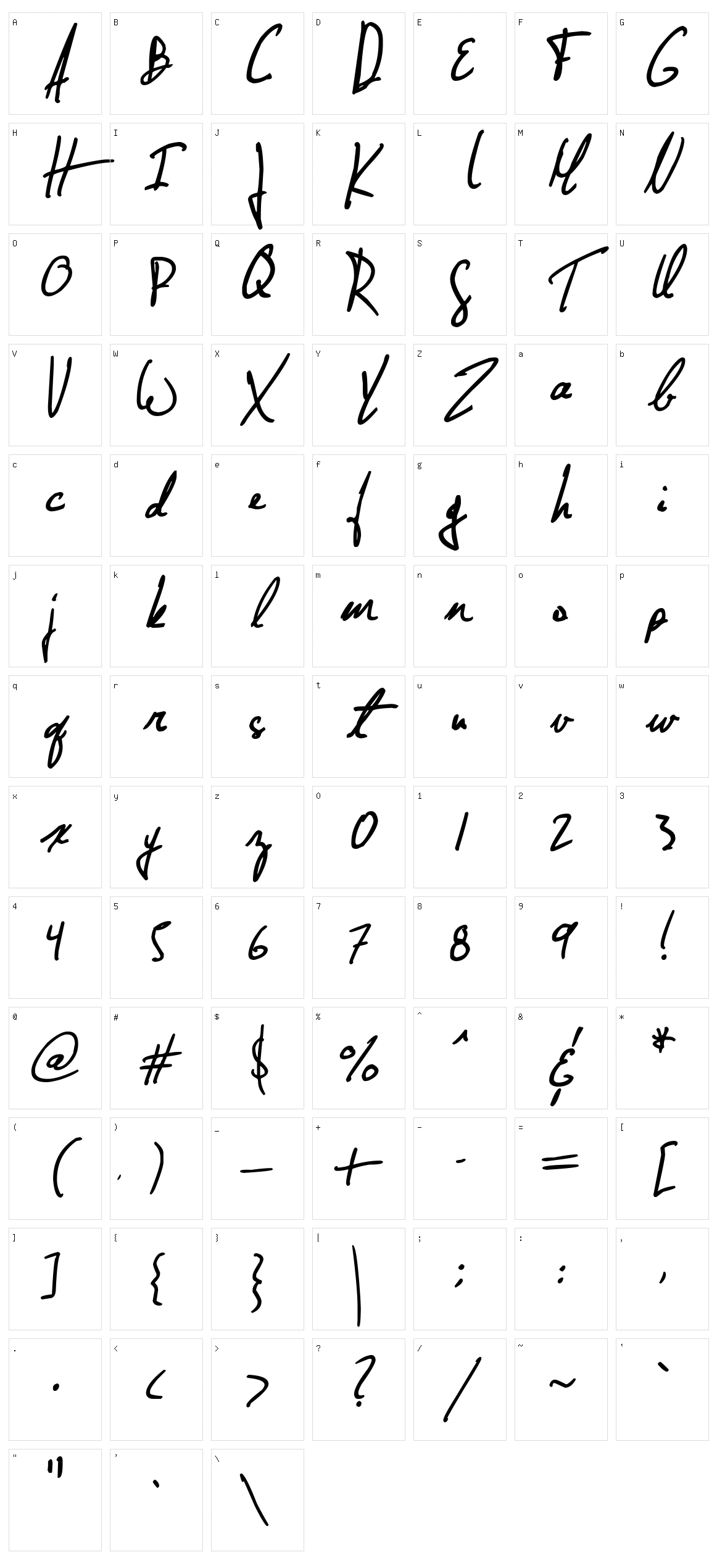
Jellyka - Nathaniel a Mystery
Designed by: Jellyka Nerevan
A font Made by Jellyka Nerevan, From CuttyFruty
This font contains a special specific character, which will do the same « th » combination than the
preview.